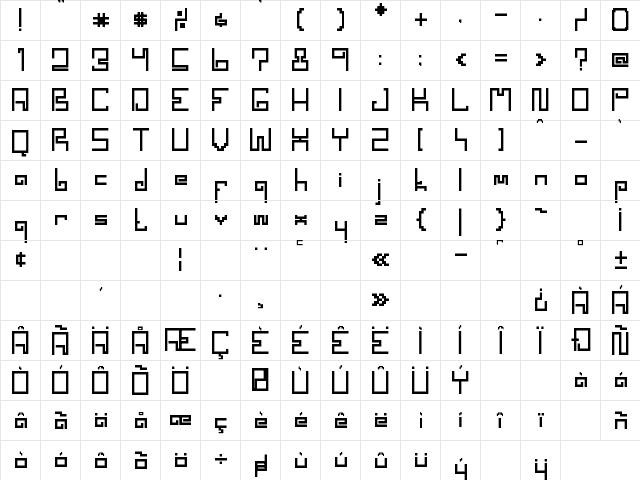
SPACEWORM Regular
| Foundry | Eric Wiryanata |
| Designer | Eric Wiryanata |
Design Context for SPACEWORM Typeface
SPACEWORM takes a measured approach to typography — its balanced proportions and neutral character make it a reliable workhorse for both digital and print work.